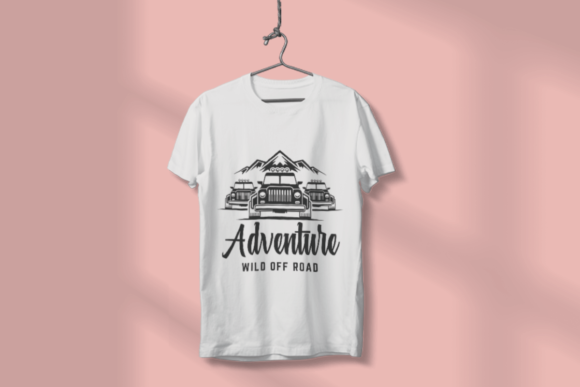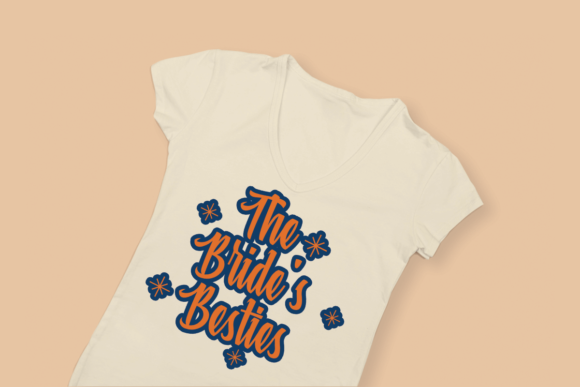
Beastic Font
db-ku.com - Script & Handwritten -- Beastic is a bold and classic handwritten font. Neat and a little bit quirky, this font is the perfect fit for all of your quotes, logos, branding, social media, t-shirts, clothing, greeting cards, wedding invitations, and crafty DIY projects.